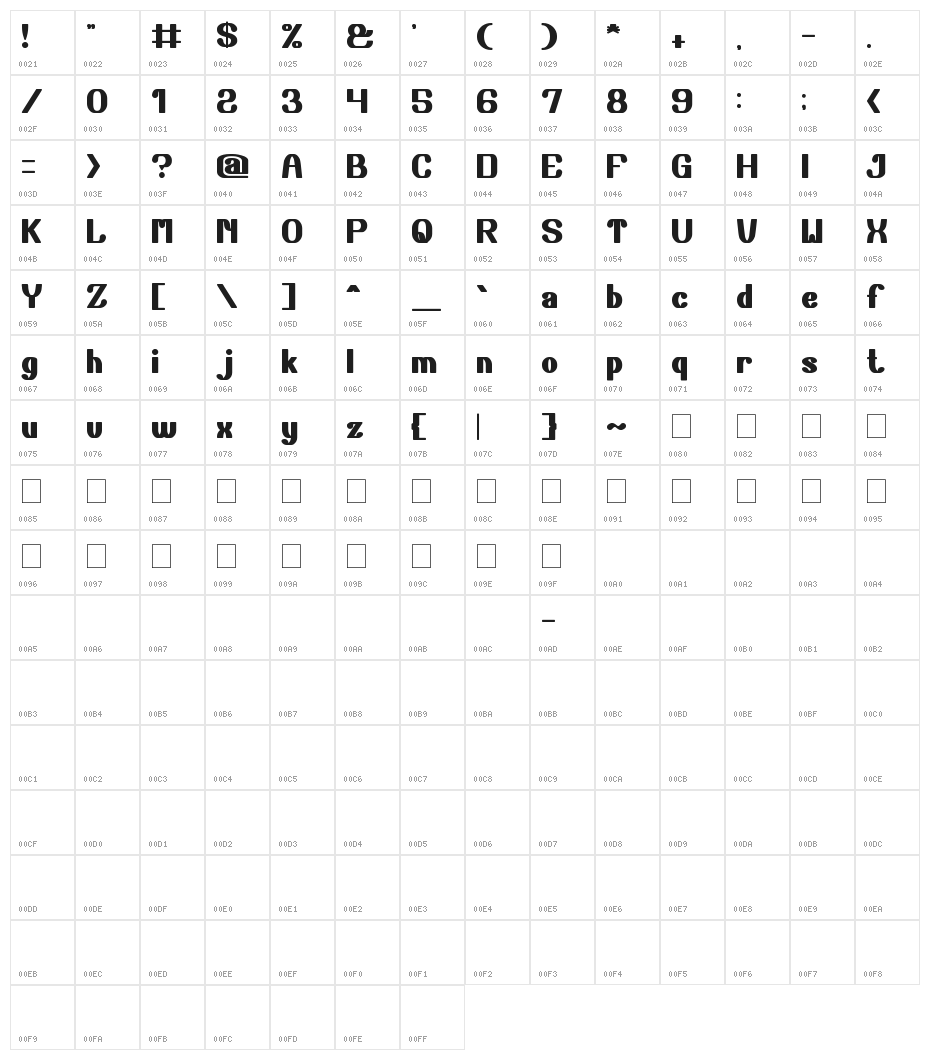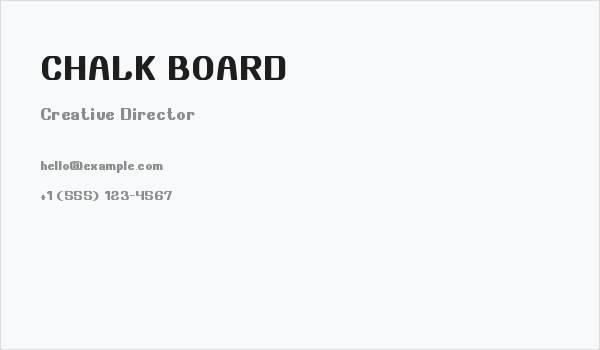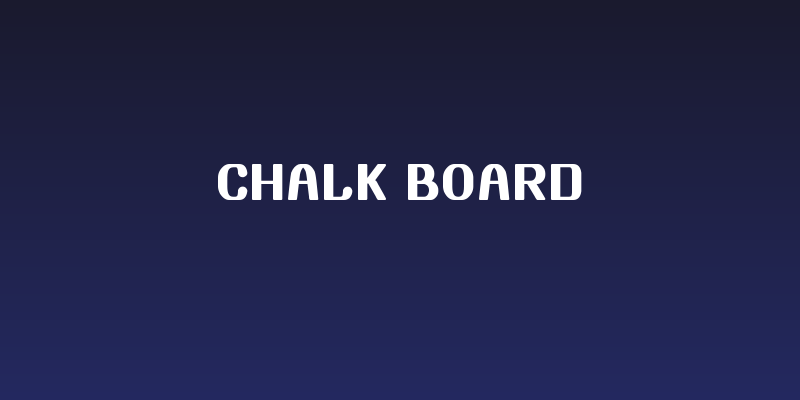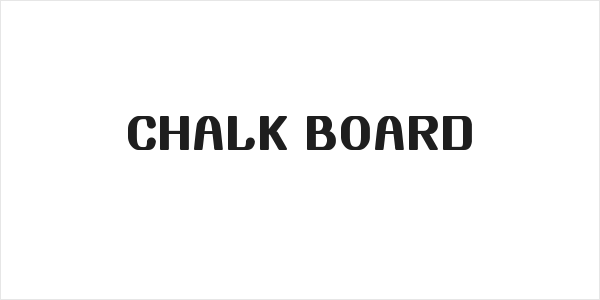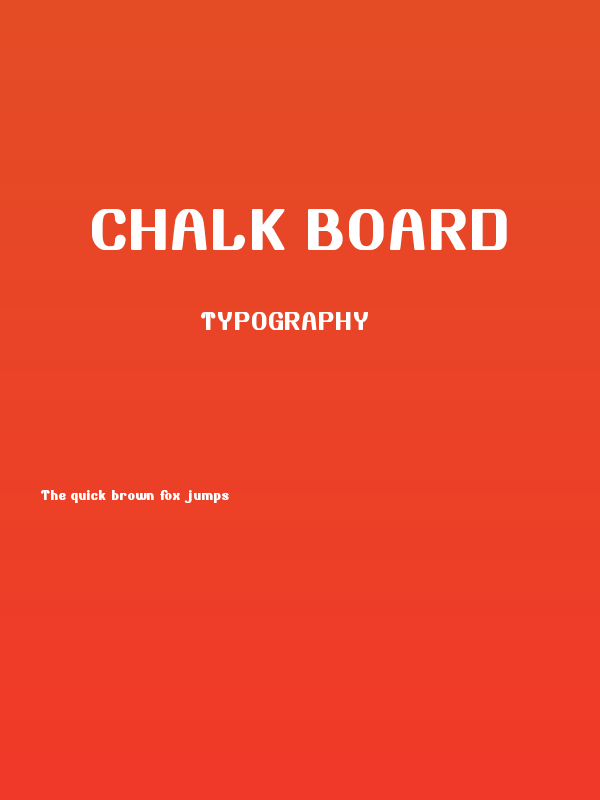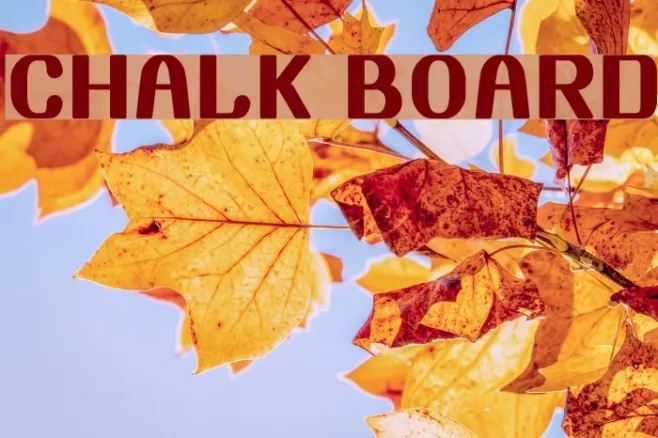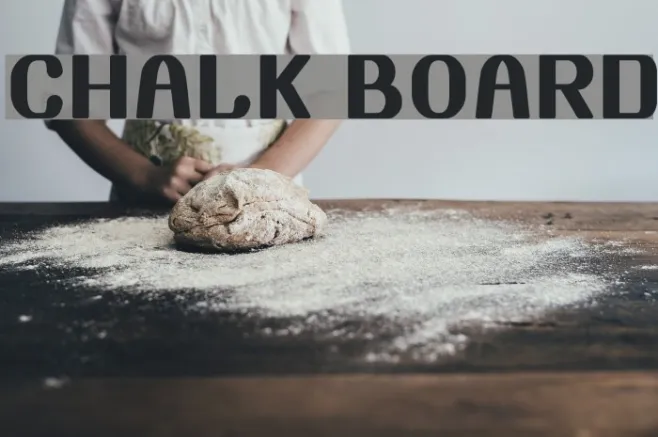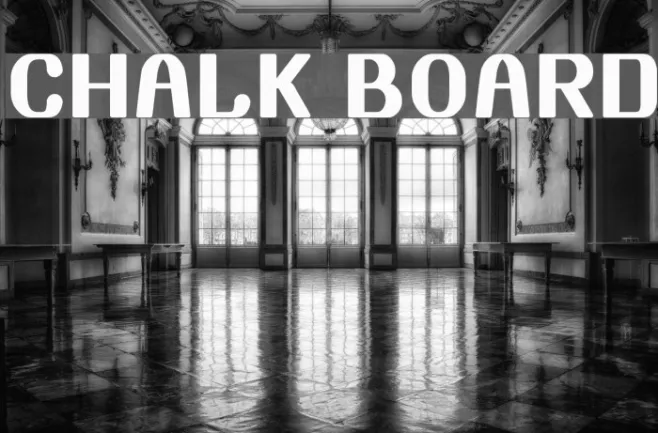
CHALK BOARD Font
CHALK BOARD Description
This font features a bold and playful style, reminiscent of classic chalkboard lettering. The characters are rounded with a slight slant, giving them a casual and approachable feel. The uppercase letters are robust and uniform, while the lowercase letters maintain a consistent height, adding to the font's readability. The numbers and special characters are designed with the same boldness, ensuring a cohesive look across different uses. The font's thick strokes and rounded edges make it ideal for creating a friendly and inviting atmosphere.
| Overall Style | Playful, Casual |
| Use Case | Headlines, Logos, Signage |
| Proposed Projects | Ideal for educational materials, children's books, playful branding, and signage. |